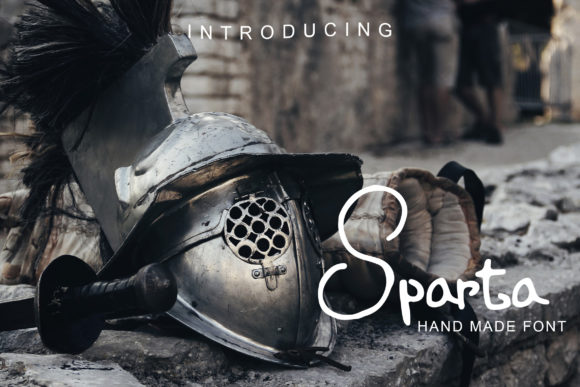
Step into the realm of timeless aesthetics with Sparta Font, a mesmerizing script that captures the essence of elegance and playfulness. Its strokes, imbued with a touch of artistry, dance across the canvas like a symphony of ink. This font family, crafted by the visionary SungiCreative, is a testament to the power of imagination and innovation in typography.
With Sparta Font, your designs will transcend the ordinary and embrace an aura of distinction. Let your words dance with grace, conveying messages with an eloquence that captivates and enchants. This font is an invitation to embark on a journey of self-expression, where creativity knows no bounds.
Picture the allure of handwritten notes, where each letter carries a story, a whisper of intimacy. The Sparta Font's script style evokes this essence, imbuing your projects with a touch of nostalgia and warmth. Its charming imperfections lend a human quality, making your creations resonate with audiences on a deeper level.
Unleash your imagination and explore the endless possibilities that Sparta Font offers. Design logos that command attention, leaving an indelible mark on customers' minds. Create eye-catching social media posts that speak volumes, engaging followers with a visual feast. Embark on branding endeavors that exude sophistication and uniqueness, setting your business apart from the crowd.
With Sparta Font, your designs will radiate a captivating allure that draws eyes and captivates hearts. Its enchanting aesthetic will elevate your projects, adding a layer of sophistication and charm that leaves a lasting impression. Join the ranks of creative visionaries who harness the power of Sparta Font to craft masterpieces that transcend time and trends.
Don't let ordinary fonts limit your creative potential. Embrace the magic of Sparta Font and watch your designs come alive with a beauty that speaks louder than words. Let your imagination soar, let your creativity flourish, and let your projects captivate audiences with a visual symphony that resonates deep within their souls.